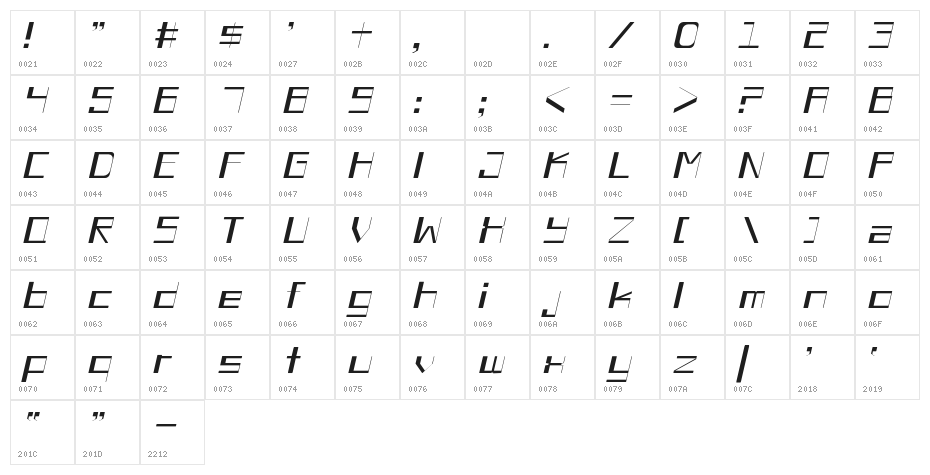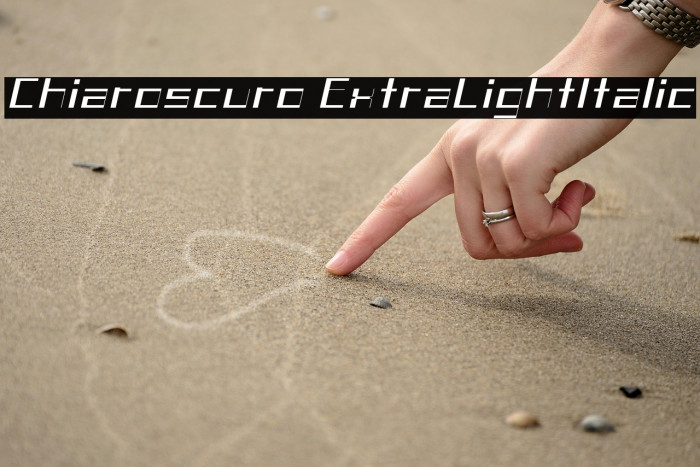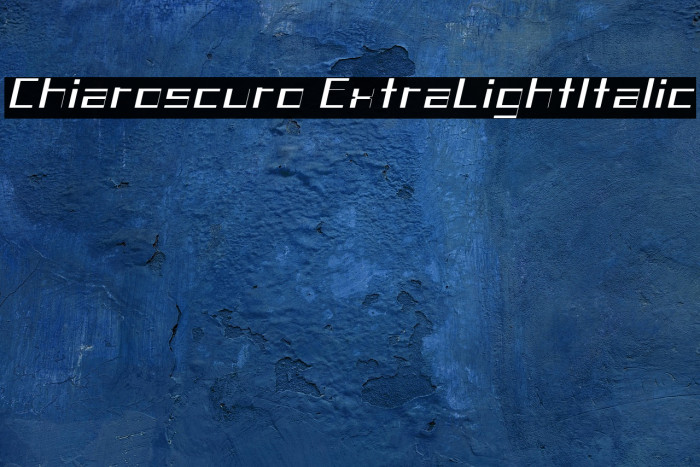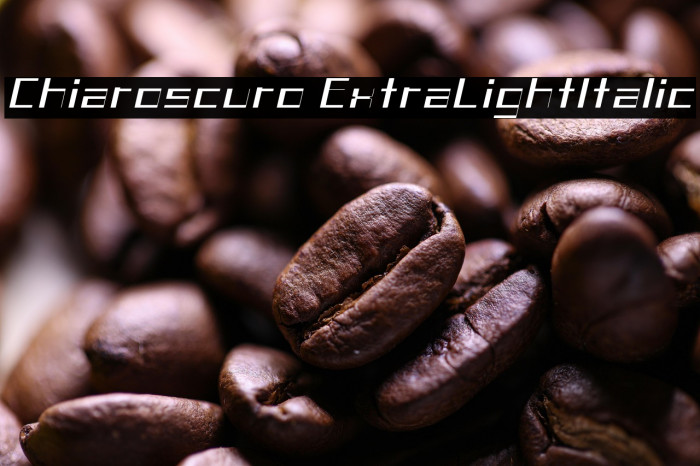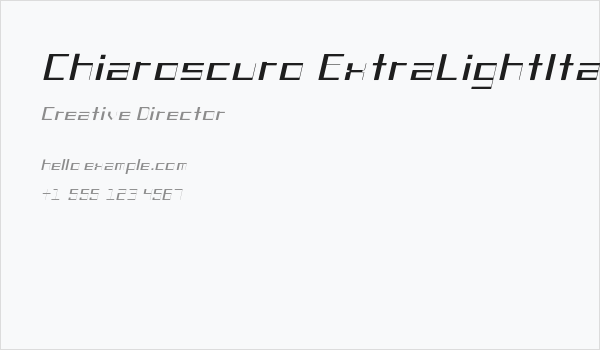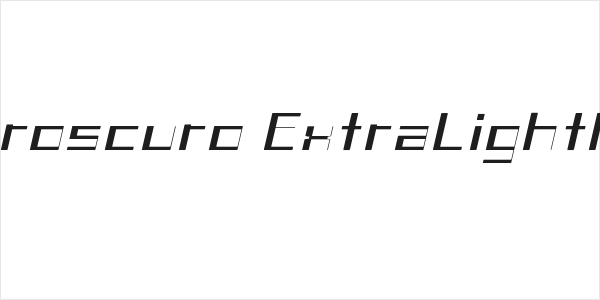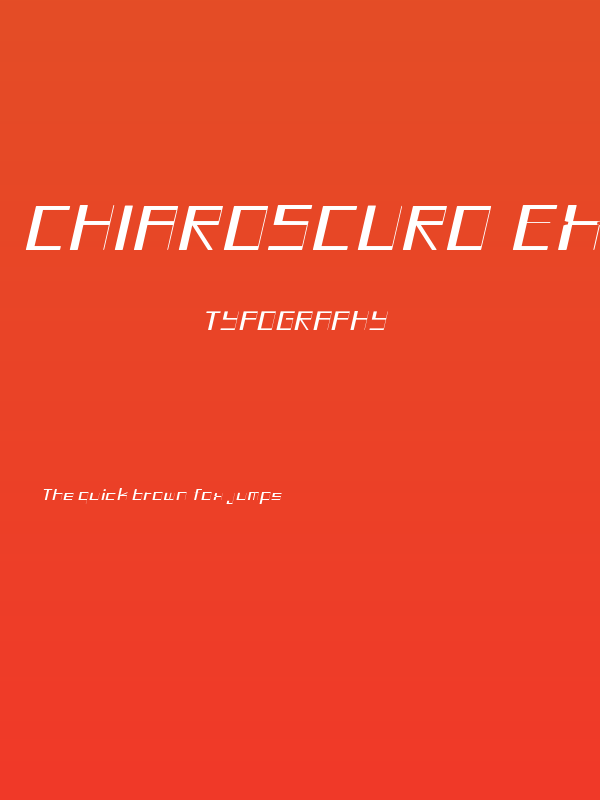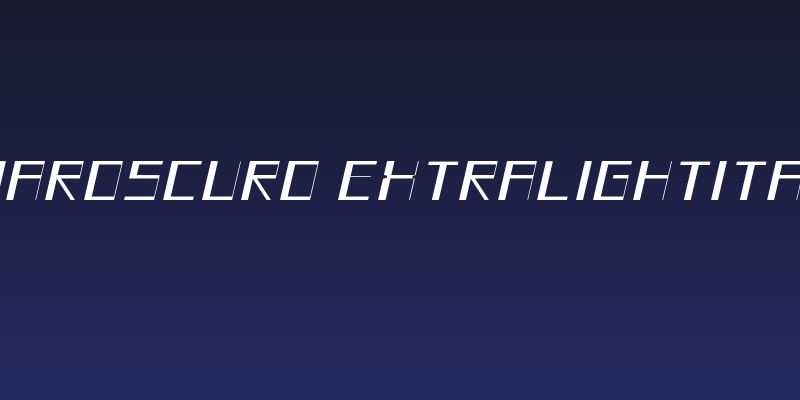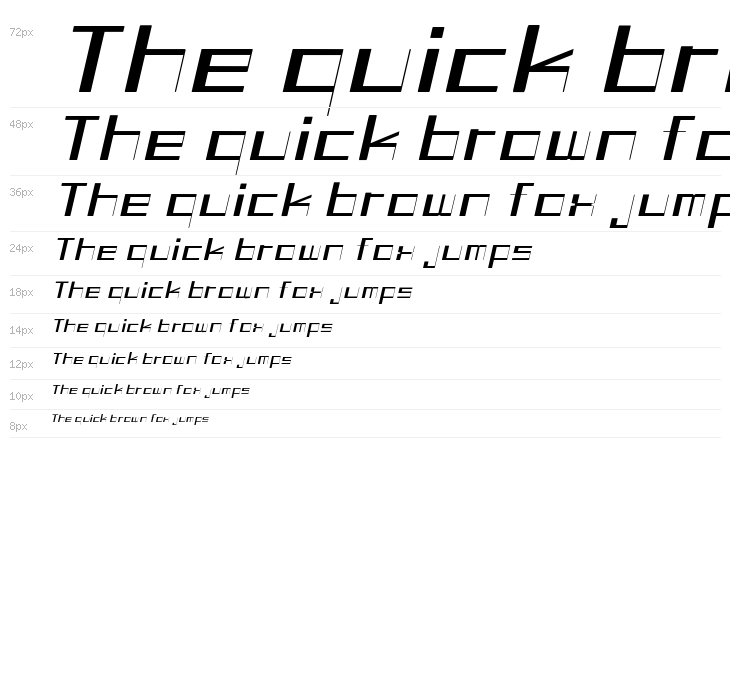
Chiaroscuro-ExtraLightItalic Font
Chiaroscuro-ExtraLightItalic Description
This font features a sleek, modern design with a distinct italic slant, giving it a dynamic and forward-moving appearance. The characters are crafted with sharp angles and clean lines, creating a sense of precision and sophistication. The extra light weight adds an airy and elegant touch, making it suitable for contemporary design projects. The font maintains a consistent stroke width, contributing to its minimalist aesthetic. Its unique style is both eye-catching and versatile, ideal for making a statement in various design contexts.
| Use Case | Headlines, Logos, Editorial design |
| Proposed Projects | Ideal for modern branding, fashion magazines, tech websites, and innovative product packaging. |